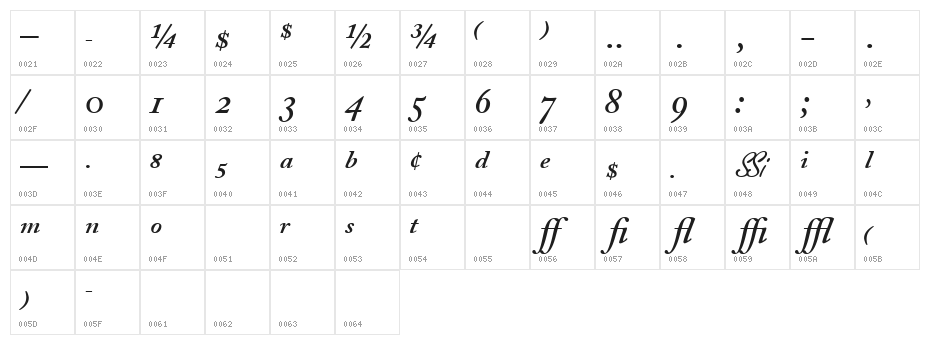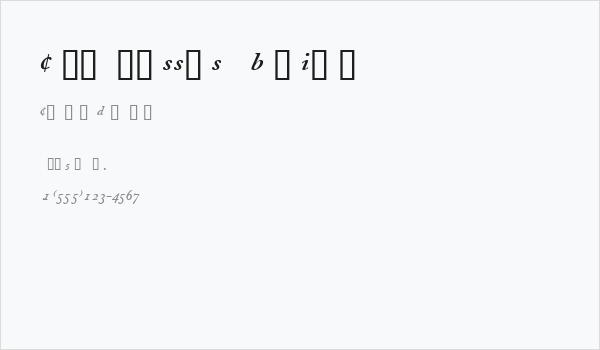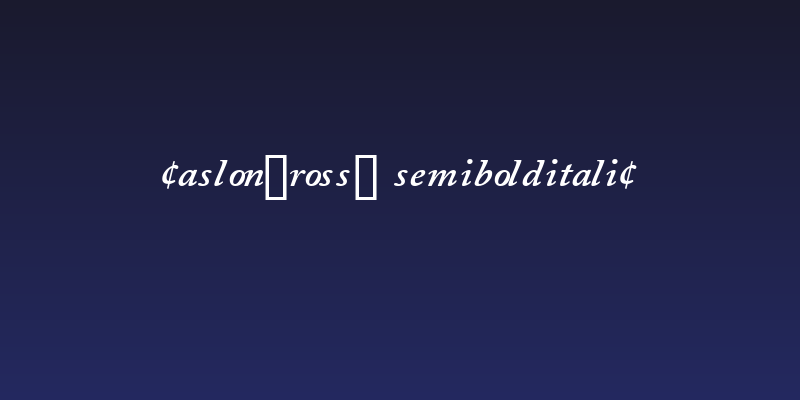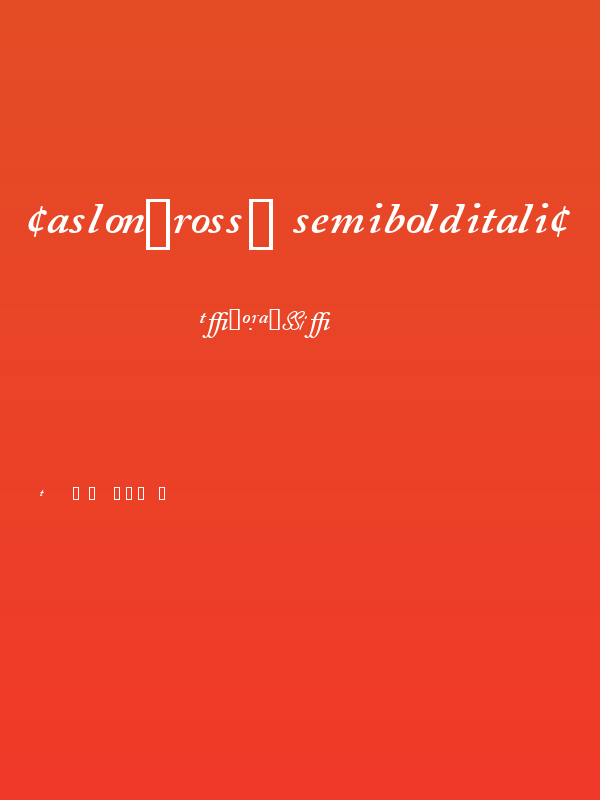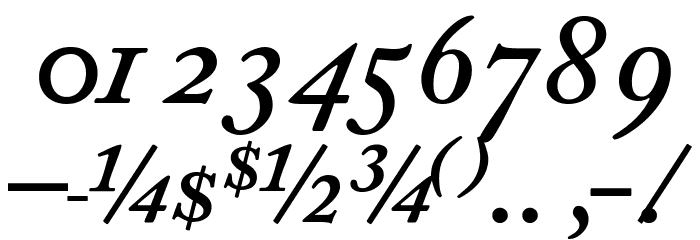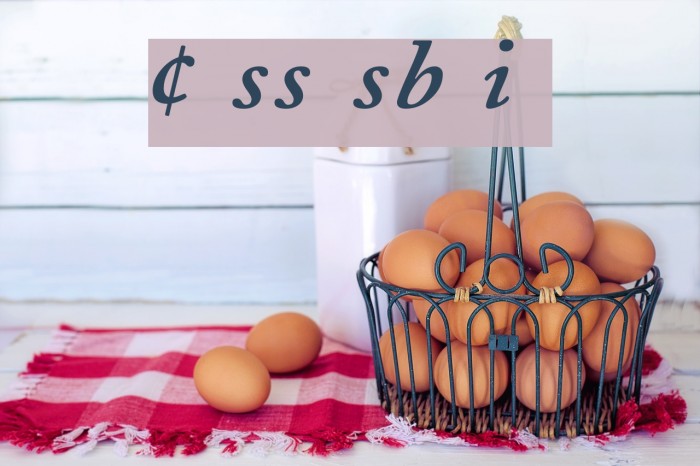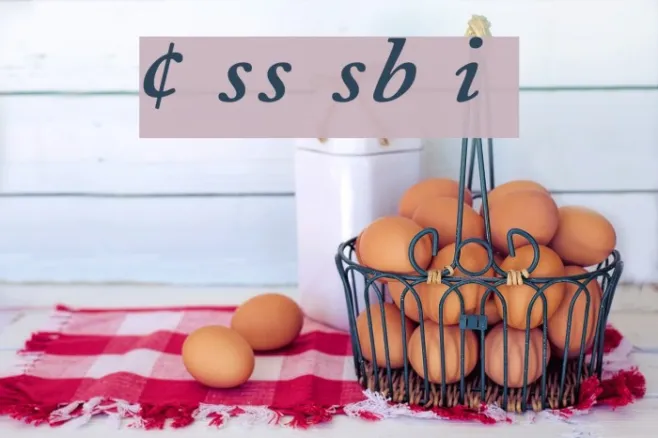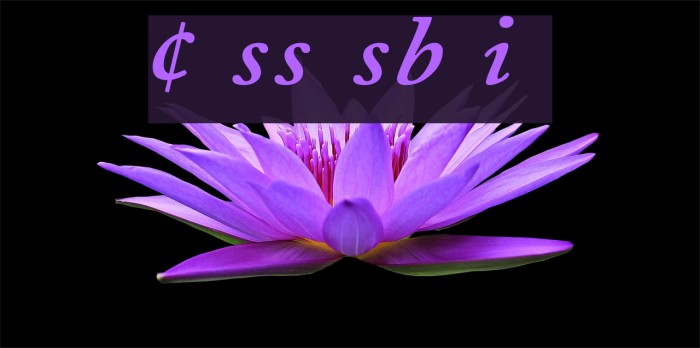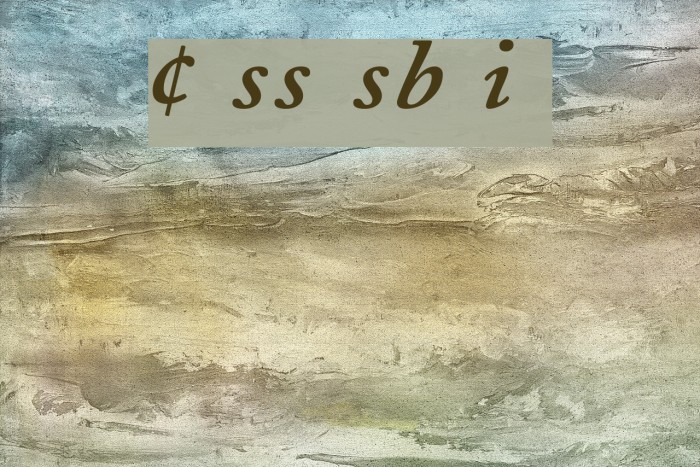
CaslonProSSK SemiBoldItalic Font
CaslonProSSK SemiBoldItalic Description
This font features a classic and elegant design with a semi-bold weight and italic style. The characters exhibit a traditional serif structure, offering a sense of sophistication and formality. The strokes are moderately thick, providing a medium contrast that enhances readability while maintaining a stylish appearance. The italic slant adds a dynamic and fluid touch, making it suitable for both formal and creative applications. The character spacing is normal, ensuring clarity and legibility across various text sizes. This font is versatile, fitting well in both digital and print media, and is ideal for projects that require a touch of elegance and tradition.
| Overall Style | Classic |
| Use Case | Headlines, Body text, Logos |
| Proposed Projects | Ideal for book covers, formal invitations, branding materials, and editorial design. |